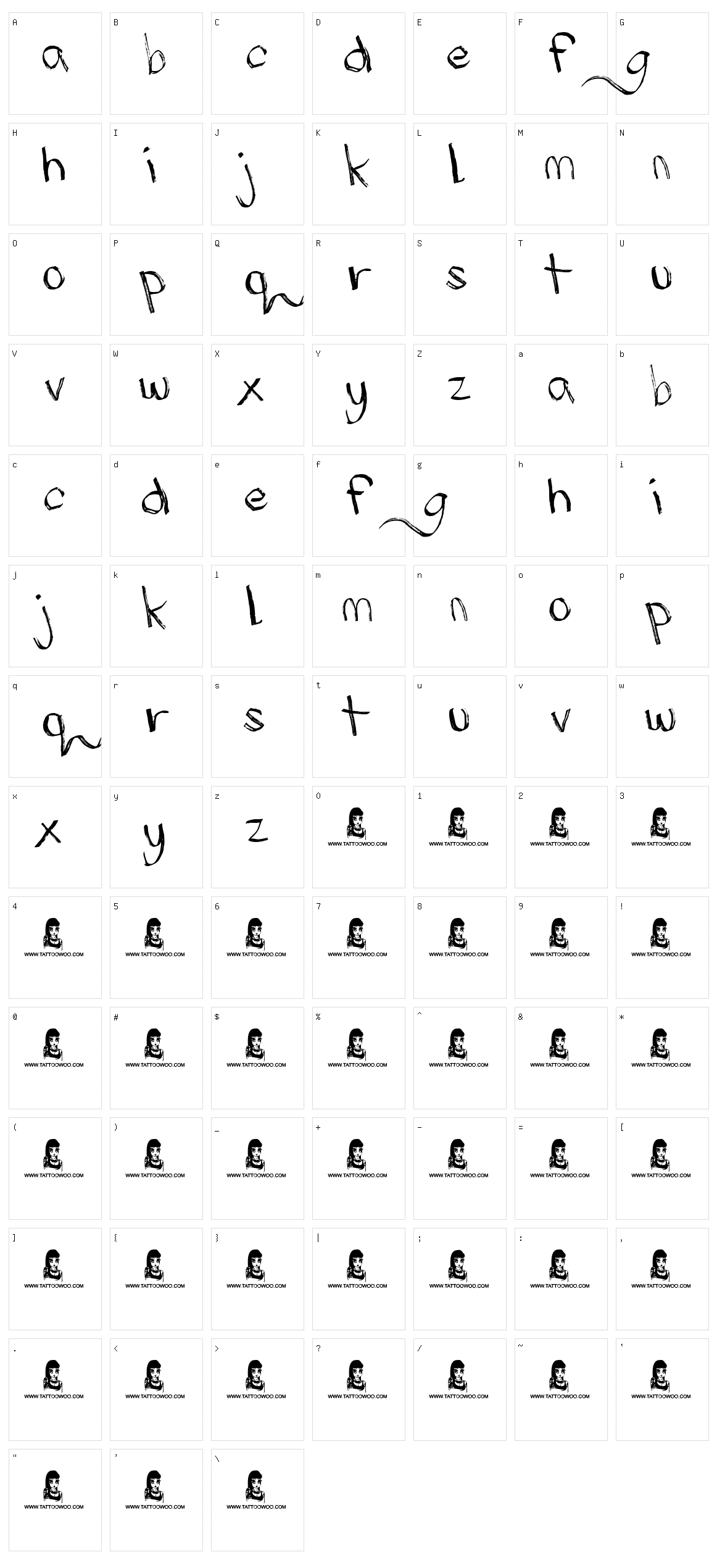
The free font School Holiday is carefully designed by JSH creates, showcasing a thoughtful balance of creativity and usability and falls under the Script font style. When you download the ZIP file, it contains only 54.06 KB of font files, making it lightweight and quick to download. Please review the license details below to understand permitted usage and distribution rights. If license information is not available, we recommend using this font for personal projects only or contacting the author directly for commercial usage permissions.